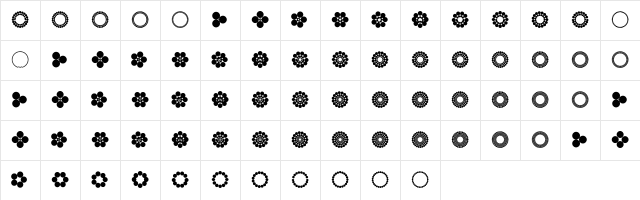
Juzudama Regular
Design Context for Juzudama
Juzudama is a composed and adaptable typeface that performs quietly and consistently across a wide range of design contexts.